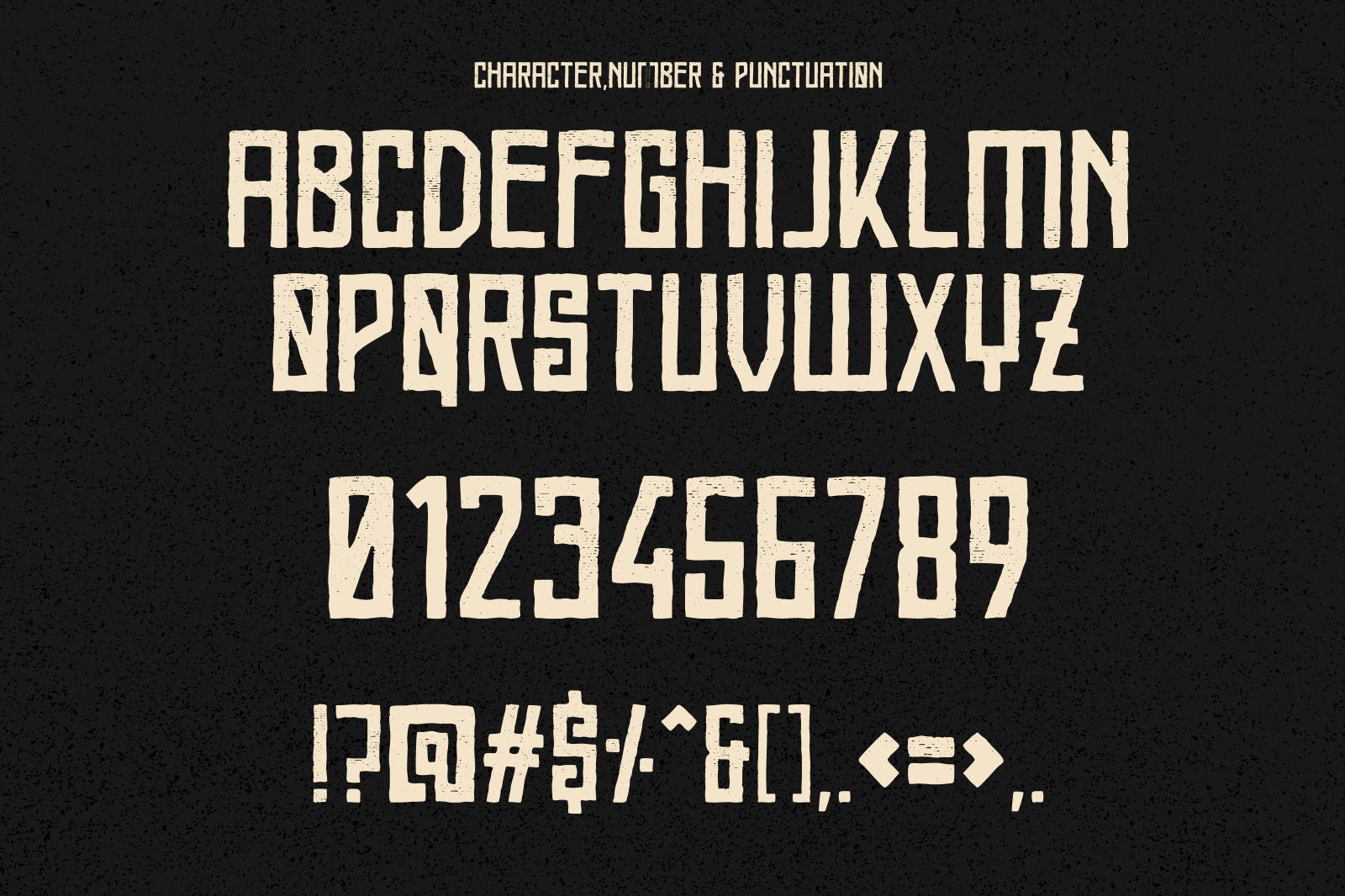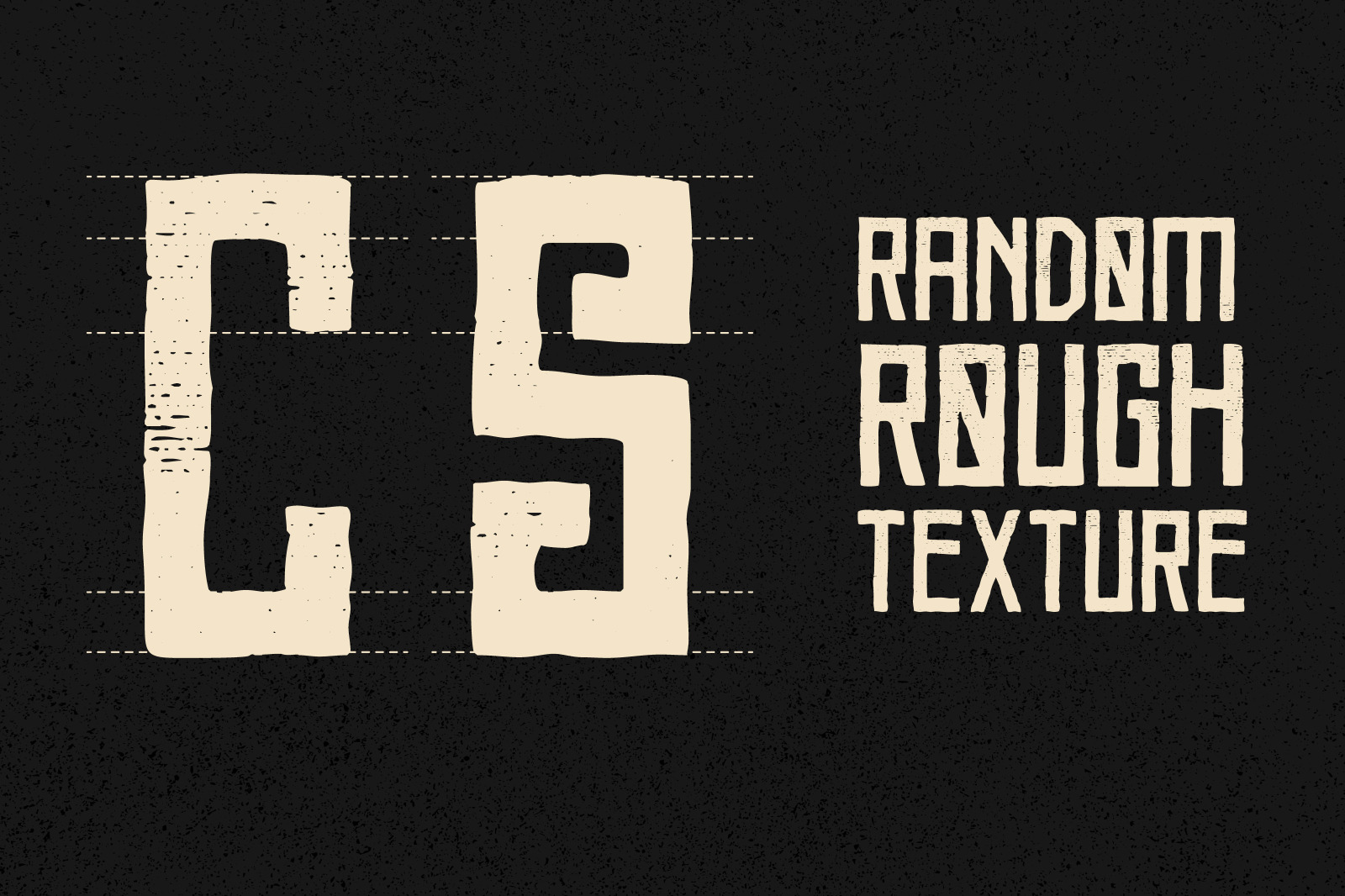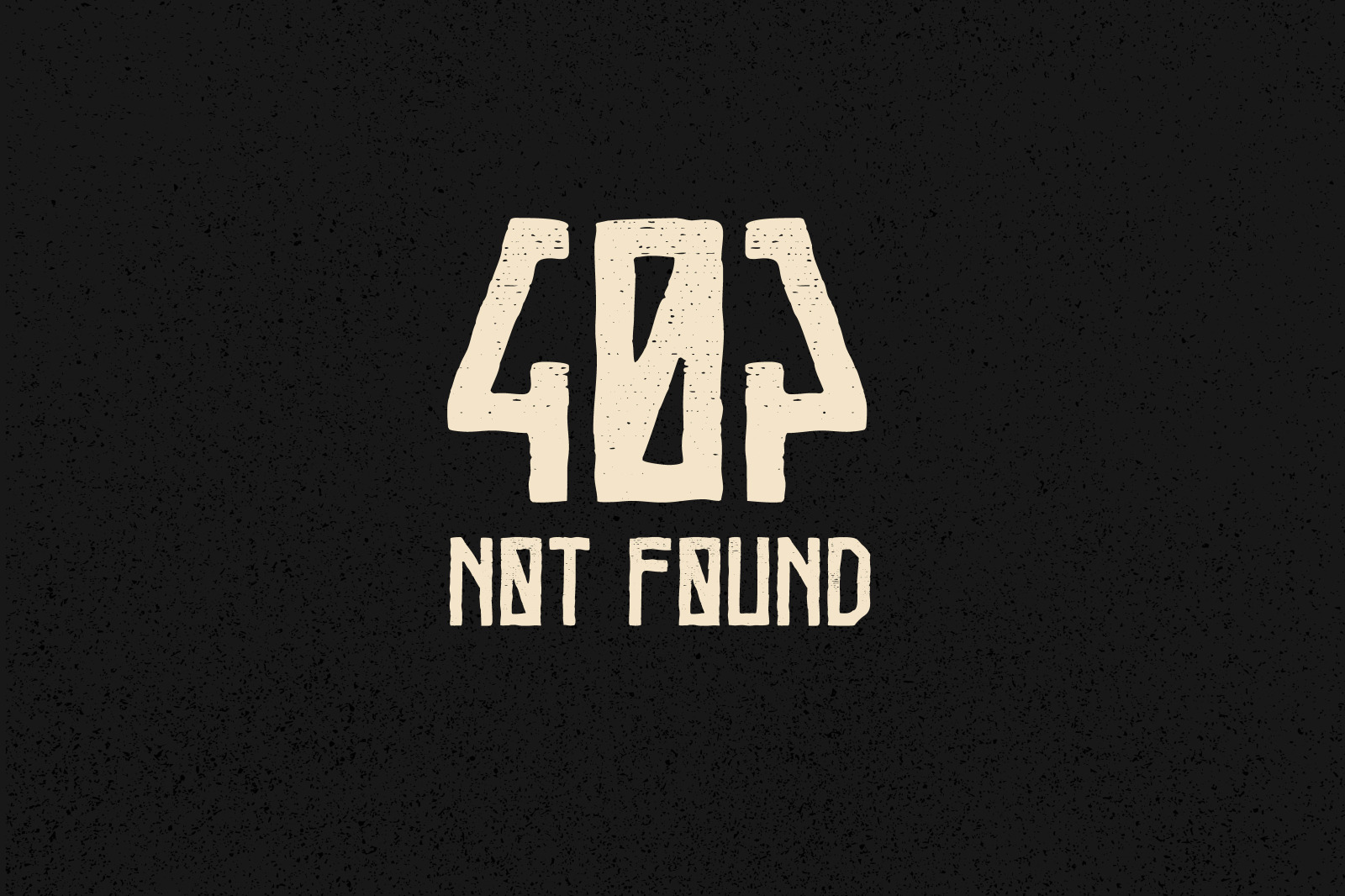
Lasoka - Rough Display Typeface
Lasoka is a unique and rough textured display font. It can be used for books, magazines, social media posts, invitations, and so much more! So add this to your creations and take your designs to the next level!